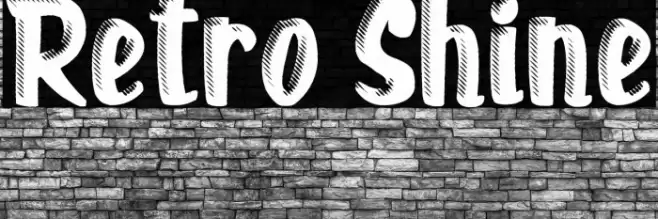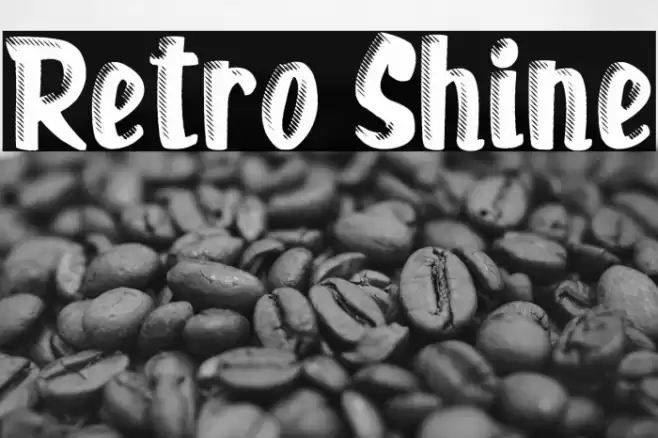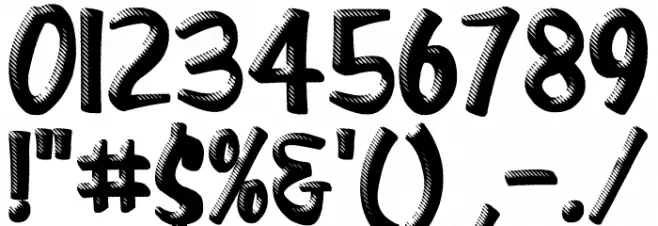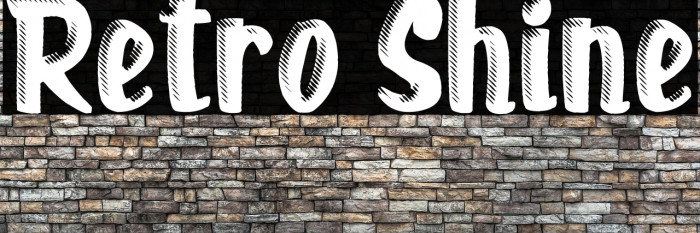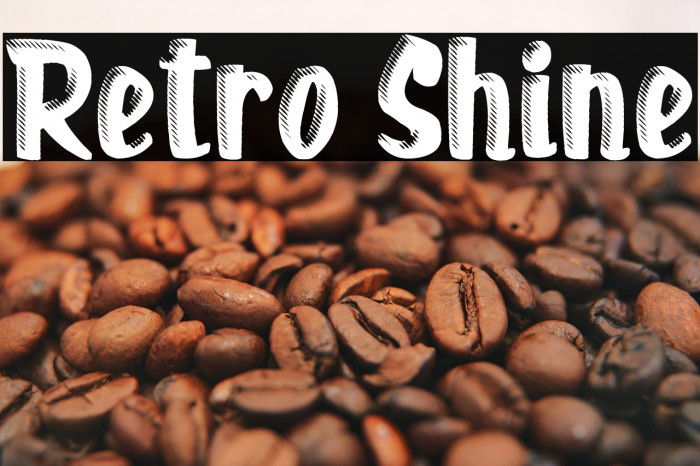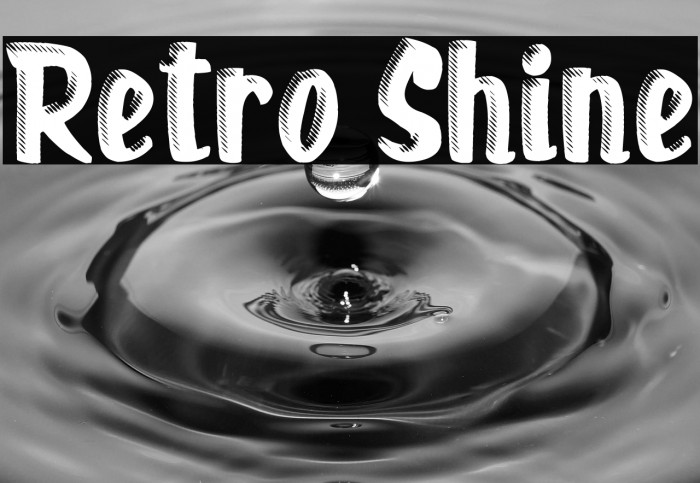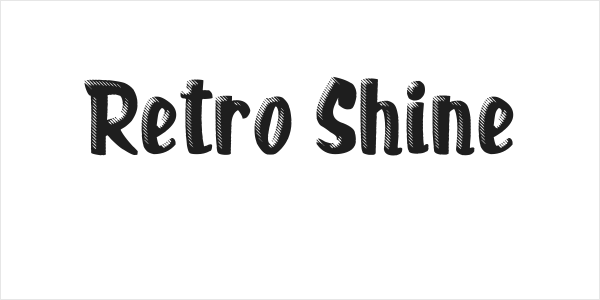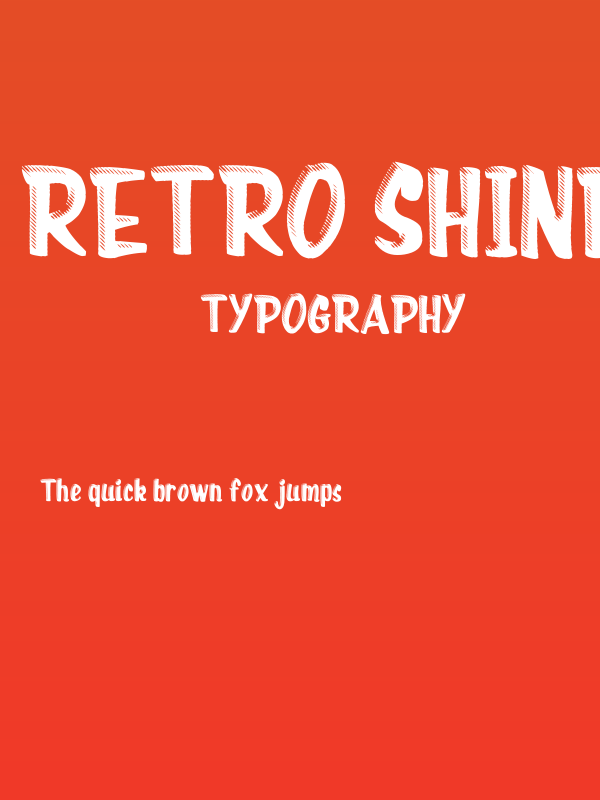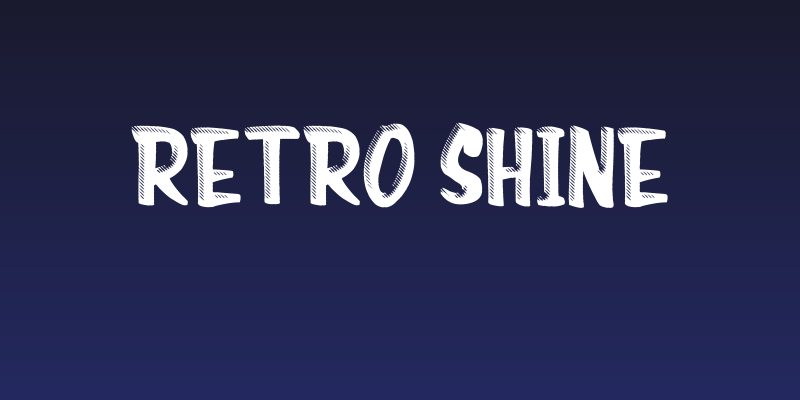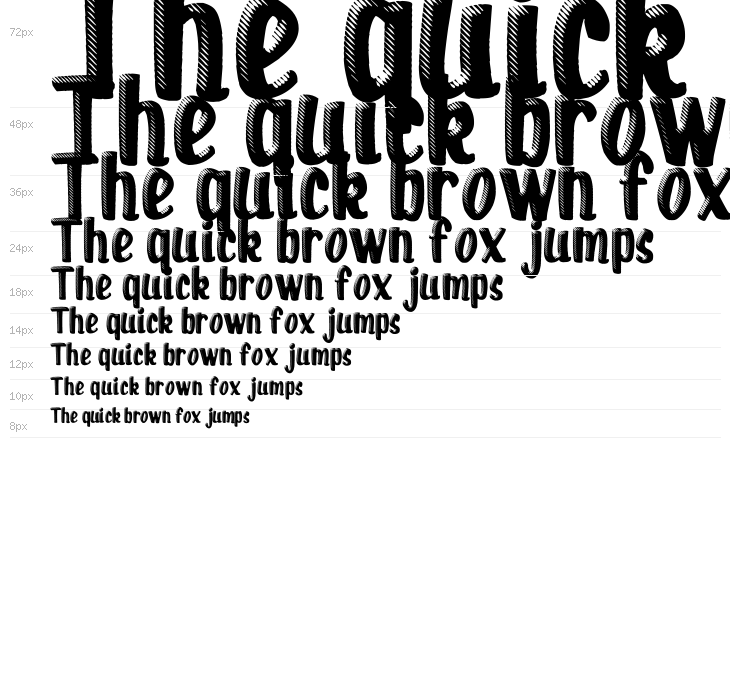
Retro Shine Font
Retro Shine Description
This font exudes a bold and playful retro vibe, characterized by its thick, rounded letters and distinctive diagonal hatching that adds a sense of depth and texture. The uppercase and lowercase letters maintain a consistent style, with a slight slant that enhances its dynamic appearance. Numbers and special characters are equally bold, ensuring a cohesive look across all text elements. The font's unique shading gives it a hand-drawn feel, making it perfect for projects that require a touch of nostalgia and creativity. Its strong presence makes it ideal for eye-catching designs.
A bold, retro-style font with diagonal hatching and a playful, dynamic appearance from Regular fonts.
- Font: Retro Shine
- Proposed Projects: Ideal for vintage-themed posters, retro branding, playful packaging designs, and creative social media graphics.
- Overall Style: Retro, Decorative